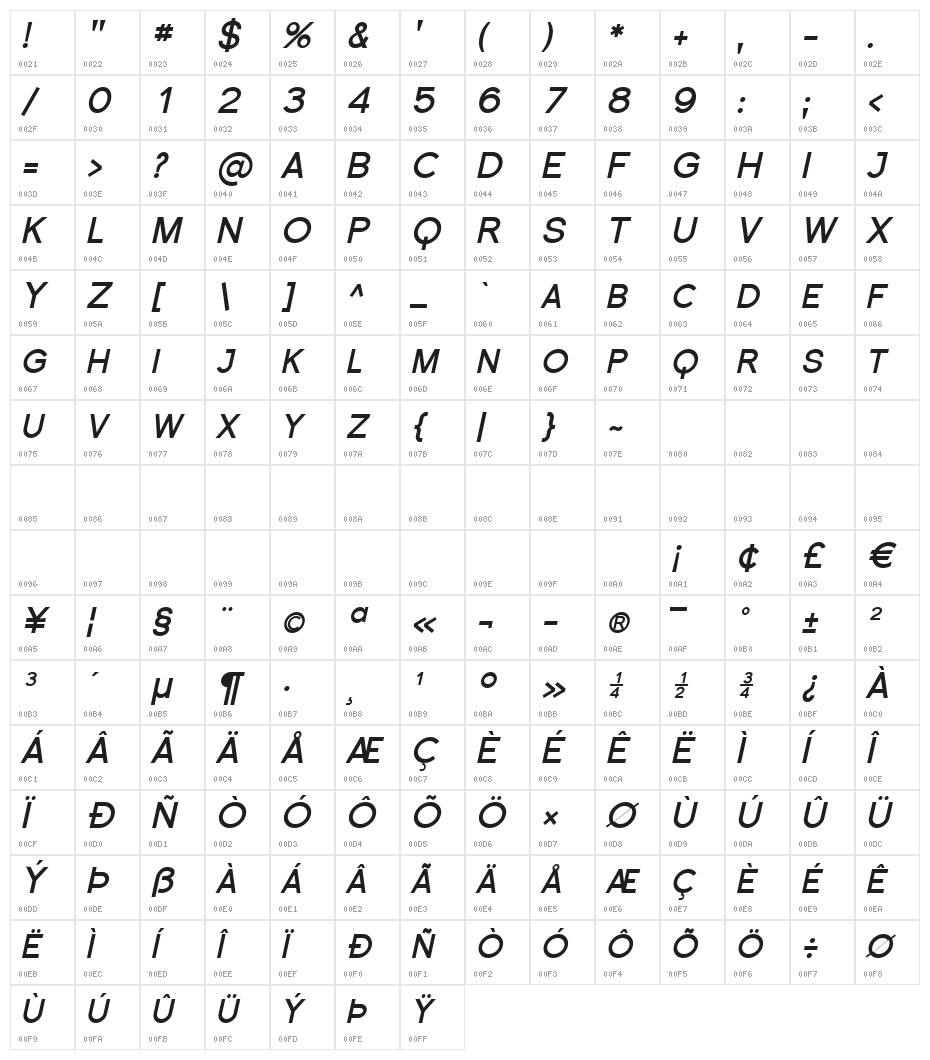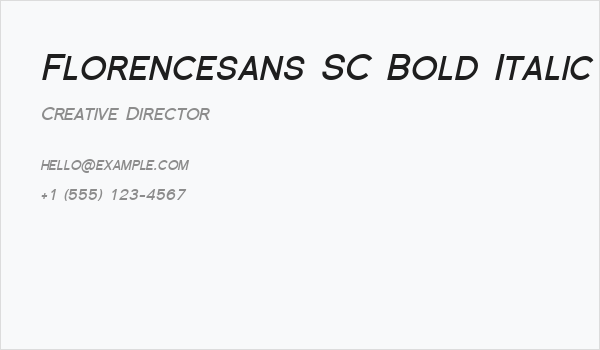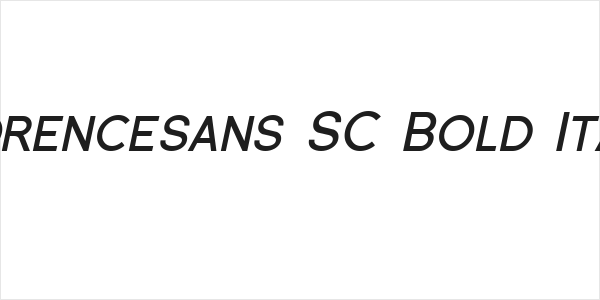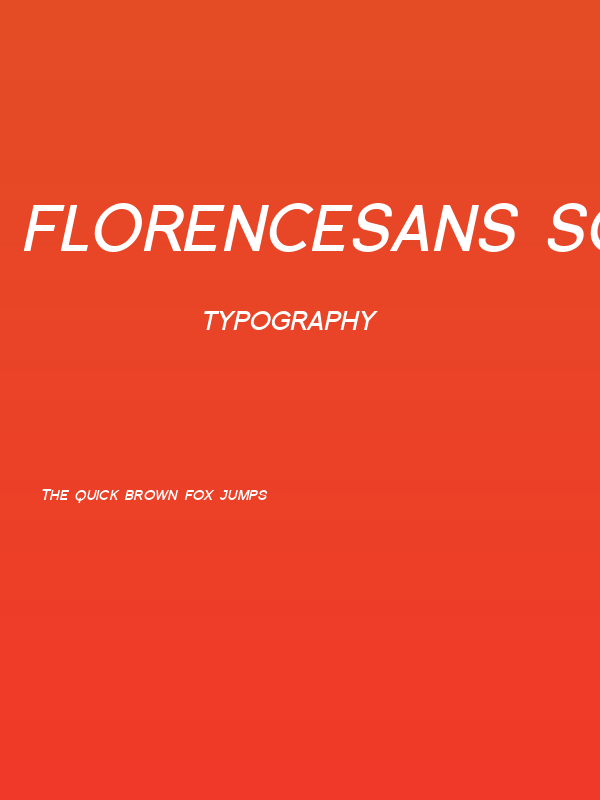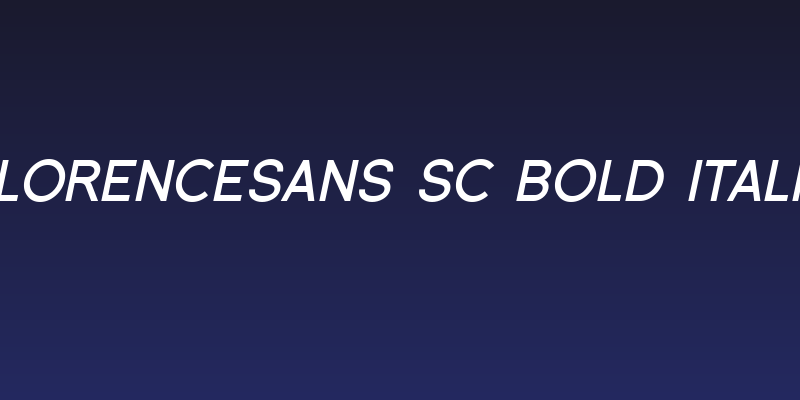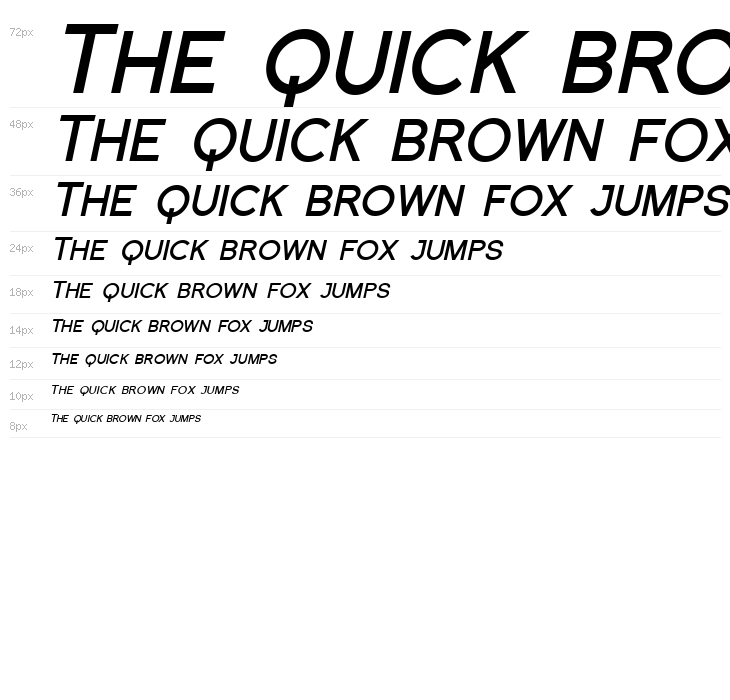
Florencesans SC Bold Italic Font
Florencesans SC Bold Italic Description
This font features a bold and italicized style with a modern sans-serif design. The characters are slightly slanted, giving a dynamic and forward-moving appearance. The strokes are consistent in weight, providing a uniform look across all characters. The numbers and special characters maintain the same bold and italicized characteristics, ensuring a cohesive appearance throughout. The font's clean lines and lack of serifs make it suitable for contemporary design projects, where clarity and readability are essential.
| Proposed Projects | Ideal for branding, advertising, and headlines where a modern and bold statement is needed. |